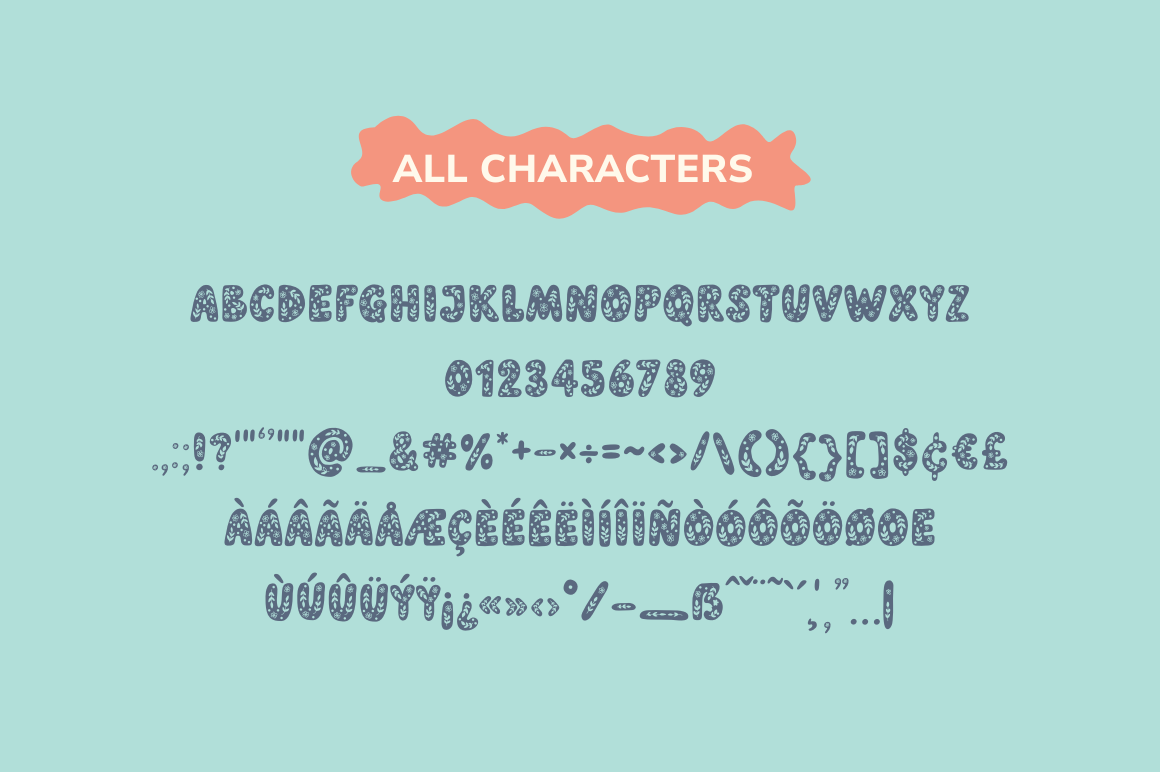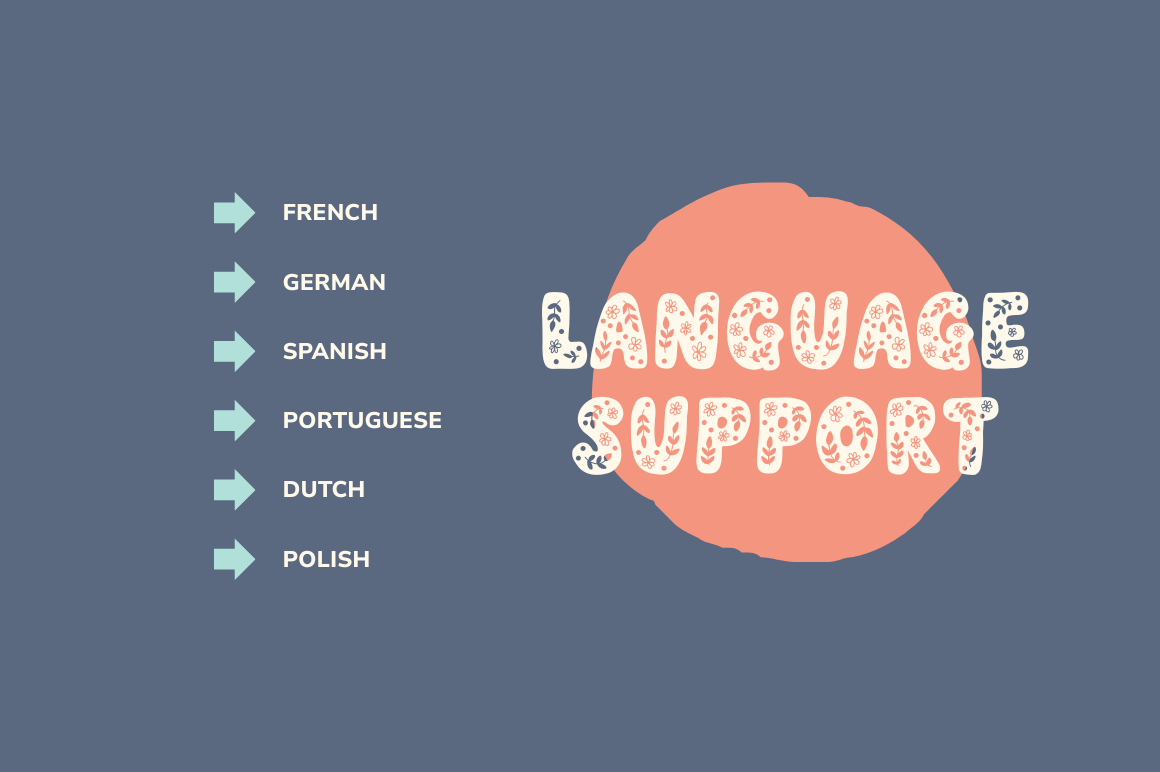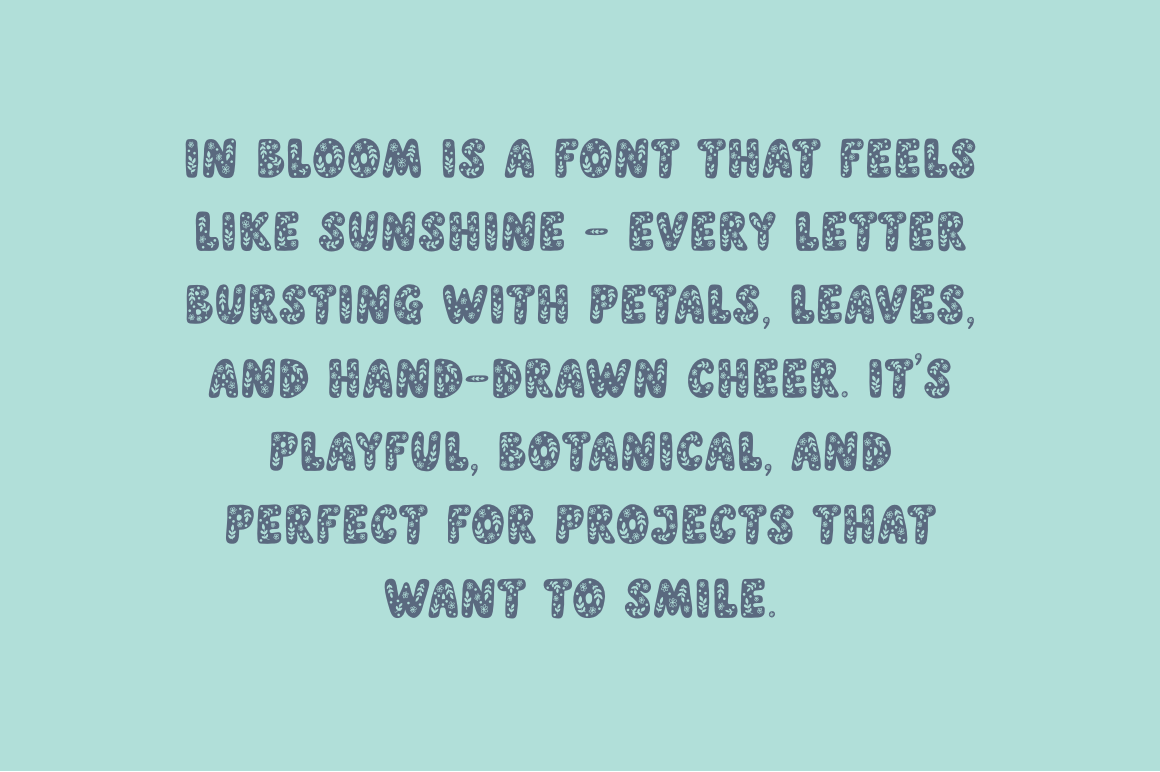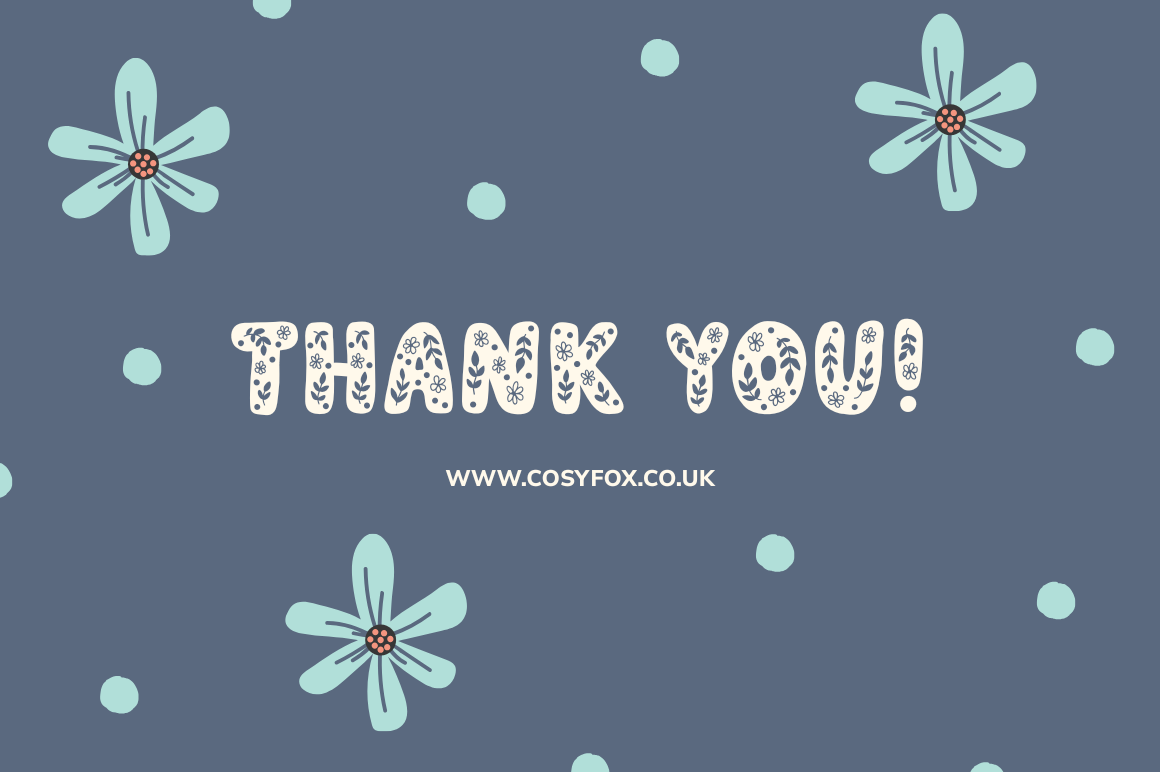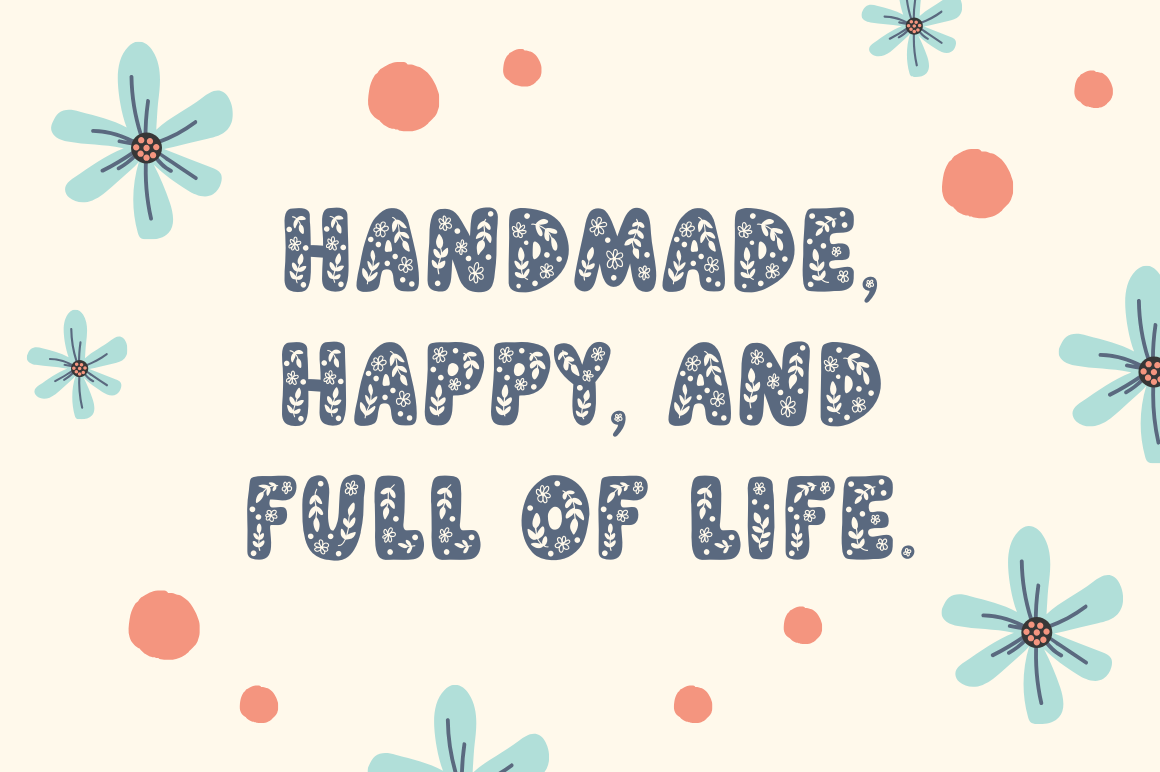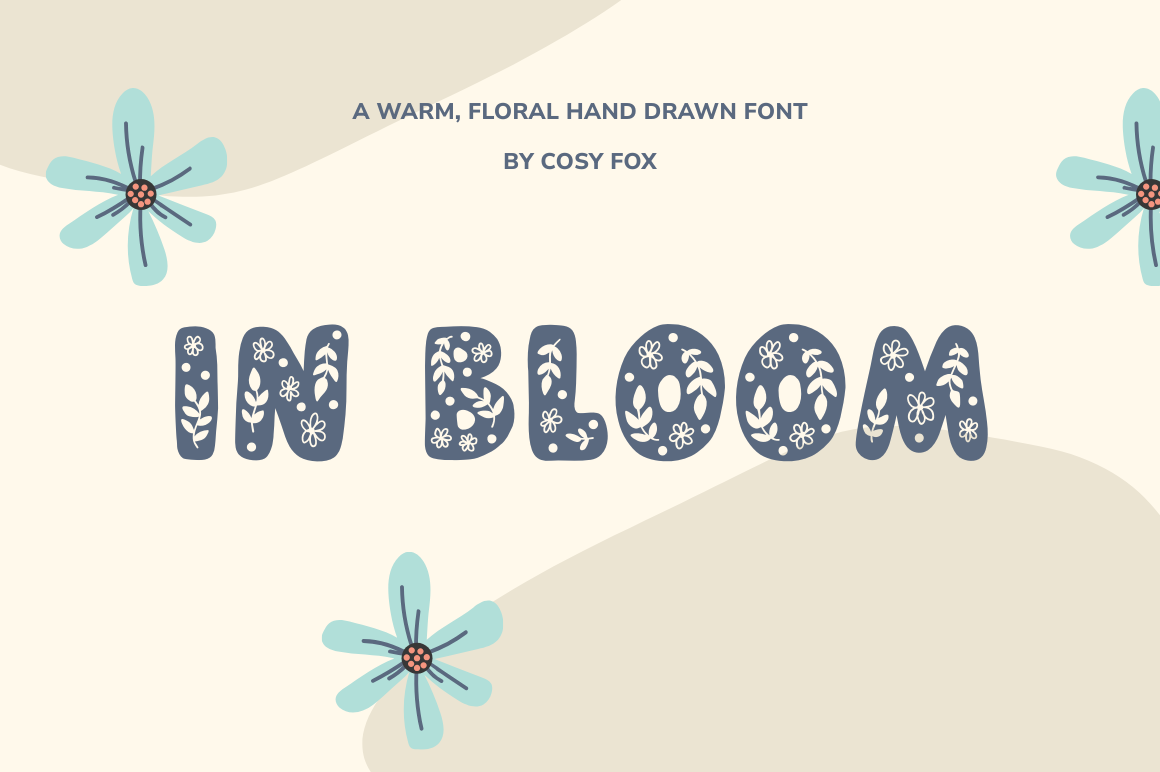
In Bloom Botanical Font
In Bloom is a bold, hand-drawn font filled with flowers, leaves, and leafy charm. Every letter is a little garden, crafted to bring joy and creativity to your designs. Whether you're designing a spring campaign, kids’ party invites, product packaging, or cheerful social graphics, In Bloom adds instant playfulness and personality. It’s decorative, chunky, and delightfully detailed—ideal for titles, stickers, logos, or any project that calls for a handmade floral twist. Fully compatible with Canva and Procreate. Language Support: French, German, Spanish, Italian, Portuguese, Polish What You Get: In Bloom .OTF font file, How to Install PDF. Thank You! www.cosyfox.co.uk